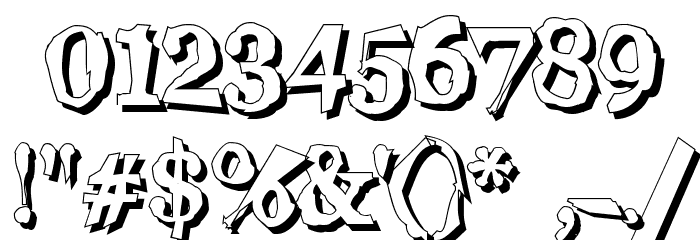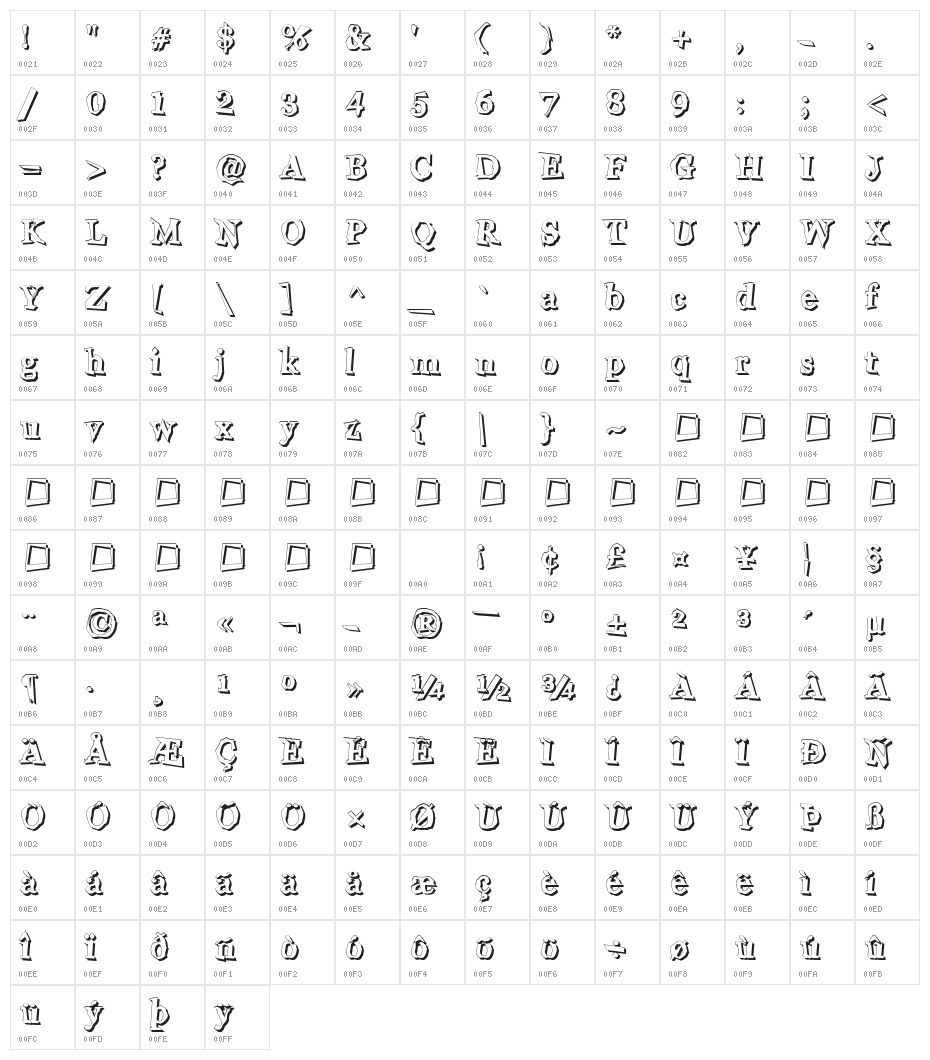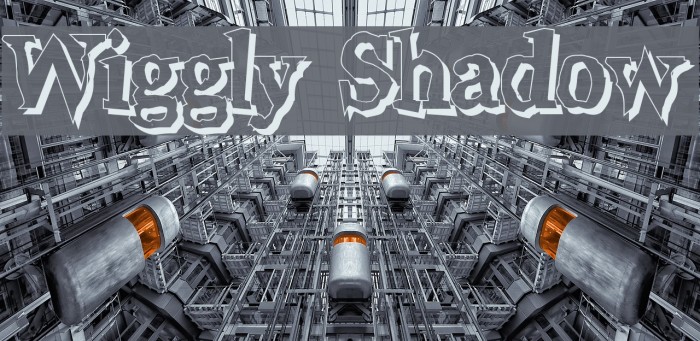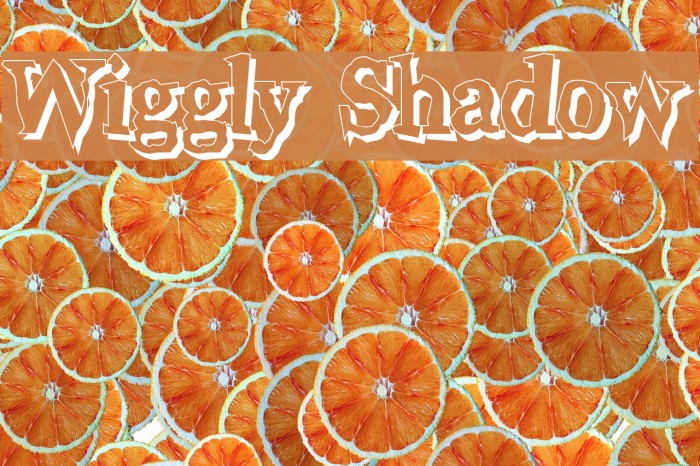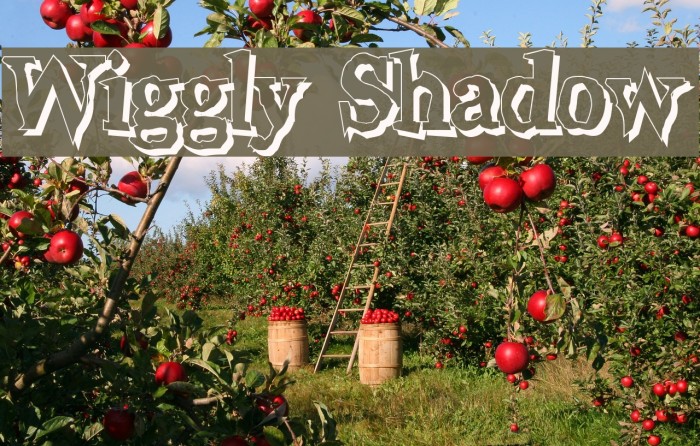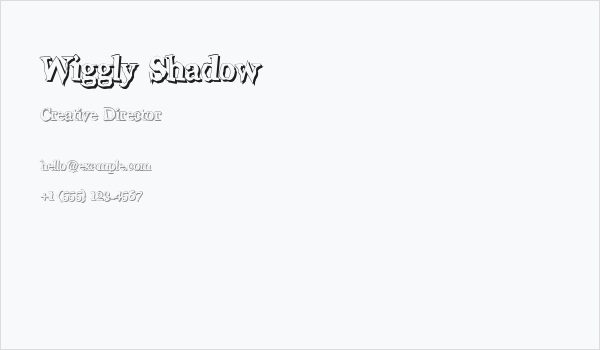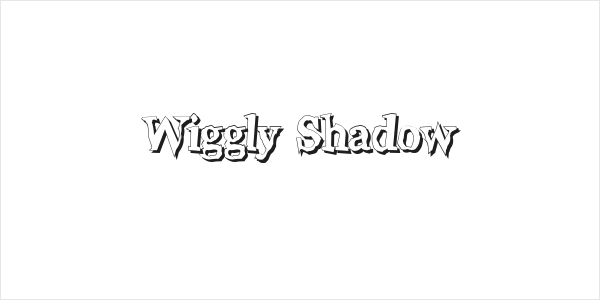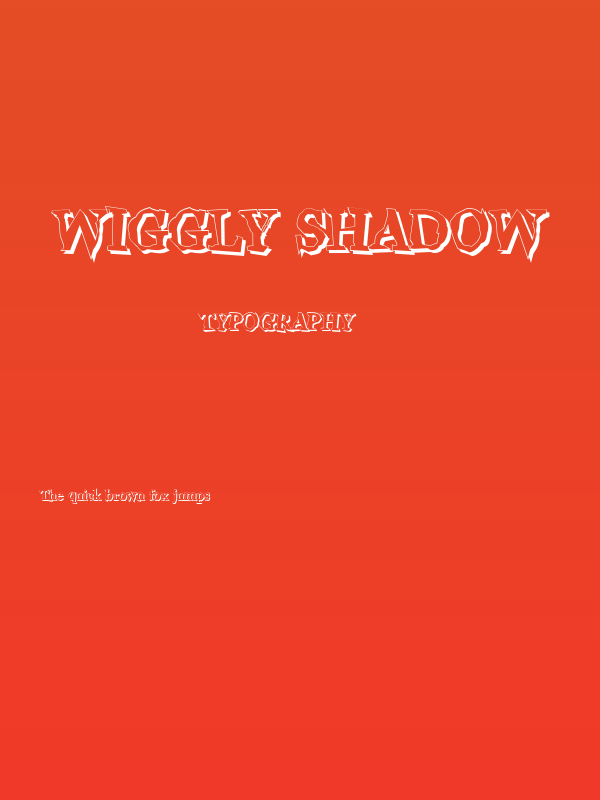
Wiggly Shadow Font
Wiggly Shadow Description
This font features a bold and playful design with a distinctive shadow effect that gives it a three-dimensional appearance. The characters have a wiggly, hand-drawn style, adding a whimsical and dynamic feel. The uppercase and lowercase letters maintain a consistent look, with exaggerated serifs and a slightly irregular baseline that enhances its quirky charm. The numbers and special characters follow the same playful aesthetic, making this font ideal for creative and informal projects. Its unique style makes it stand out, perfect for grabbing attention.
| Proposed Projects | Ideal for children's book covers, playful posters, comic strips, and creative branding. |